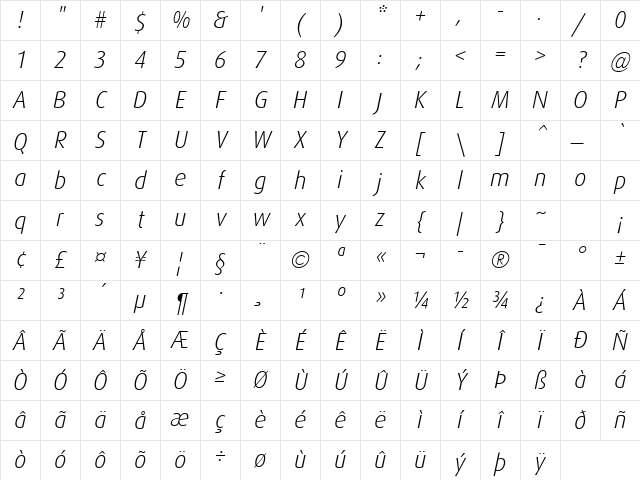
Dax Light Italic
Design Context for Dax
Dax is a composed and adaptable typeface that performs quietly and consistently across a wide range of design contexts. The slanted form adds forward momentum and visual energy. Its slender proportions lend an understated elegance to any composition.
Pro Tip: Use Dax for emphasis, pull quotes, and subheadings where its slanted energy can add rhythm to the layout.
Who designed the Dax Light Italic font?